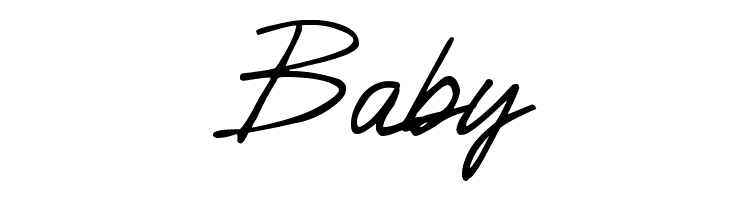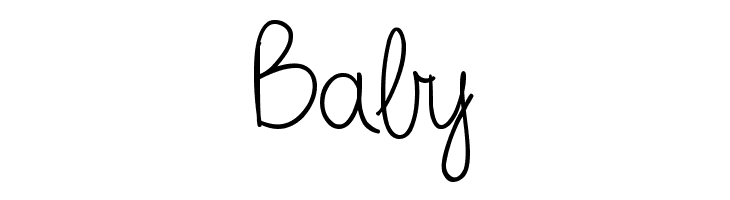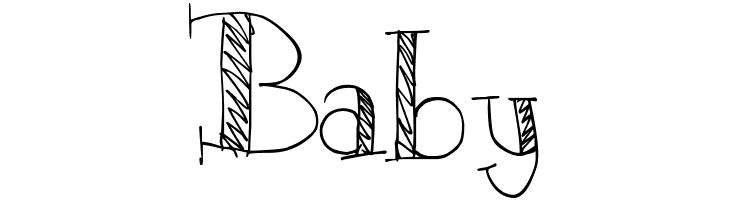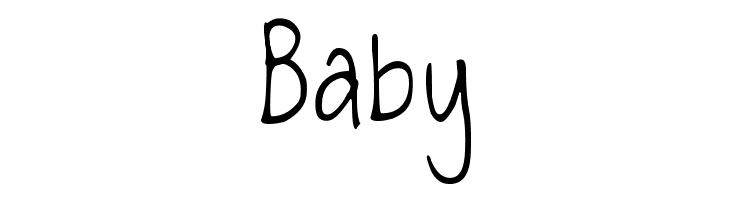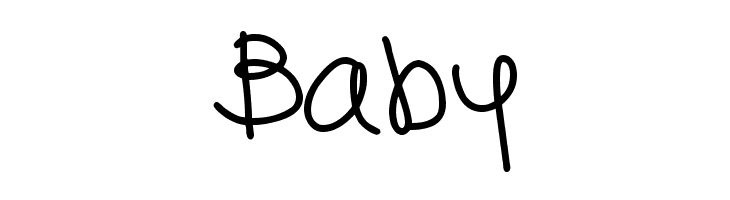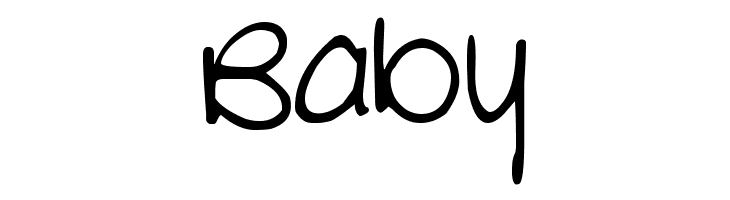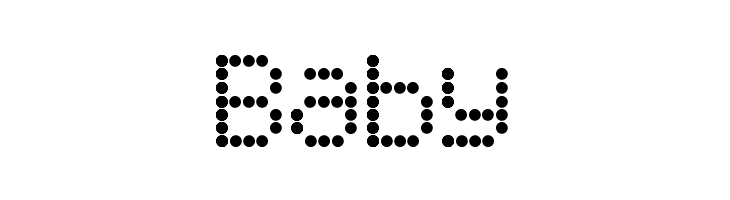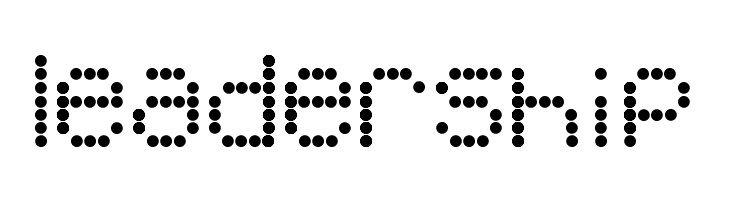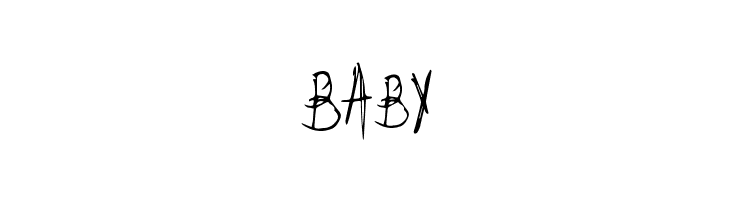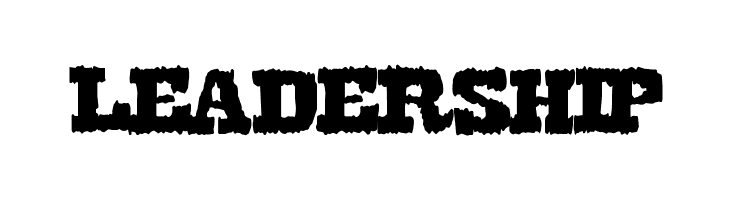
• DirtyJobs
A rugged, hand-drawn font with an edgy, chaotic style.
• DirtyLooks
A decorative font with a bubble-like texture and playful style.
• DirtyWestern
A rugged, distressed font with a bold, weathered appearance.
• DISCIPLINA PERSONAL USE
• DJB It's Full of Dots
A playful, dotted font with a whimsical, hand-drawn style.
• DJB It's Full of Stars
A playful, star-embellished font with a hand-drawn feel.
• DJB Baby Bump
A playful, handwritten font with rounded edges and a casual feel.
• DJB Boyfriend Jeans
• DJB CLyleRun
A playful, casual handwritten font with tall, narrow letters and whimsical strokes.
• DJB Coffee Shoppe Buzzed
A playful, handwritten font with a quirky and friendly style.
• DJB CRIS script
A casual script font with fluid, handwritten strokes and a natural, elegant style.
• DJB Drives Me Dotty
A playful, bubbly font with rounded characters and consistent thickness.
• DJB Emilys Garden
A whimsical, floral-themed decorative font with playful, curly lines.
• DJB Emphatic
A playful, bold font with rounded strokes and a friendly appearance.
• DJB Fancy Nancy
• DJB Fizza Wizza Wowza Bold